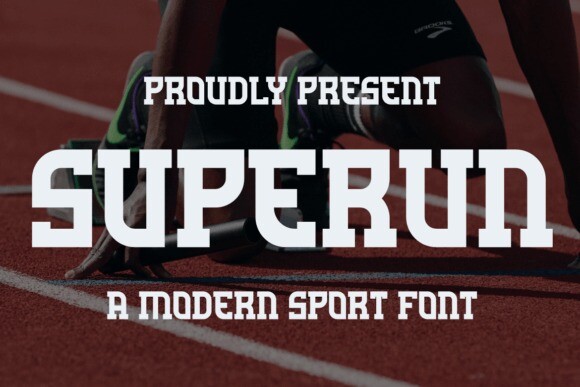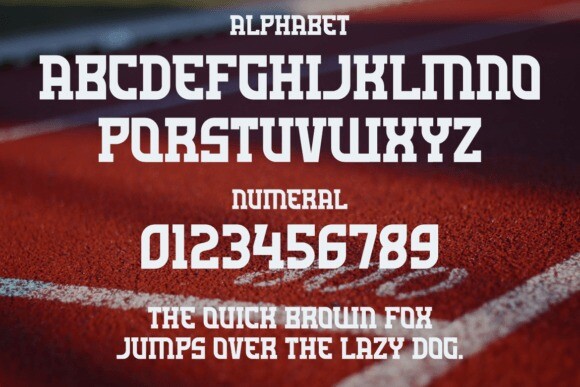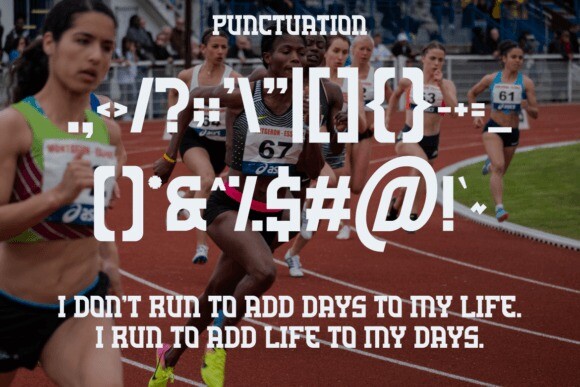
Superun Font
SUPERUN FONT – Modern Font is a bold and authentic display font. The font is suitable for any branding project like logo, template design, esport, and many more. outstanding in a wide range of contexts.